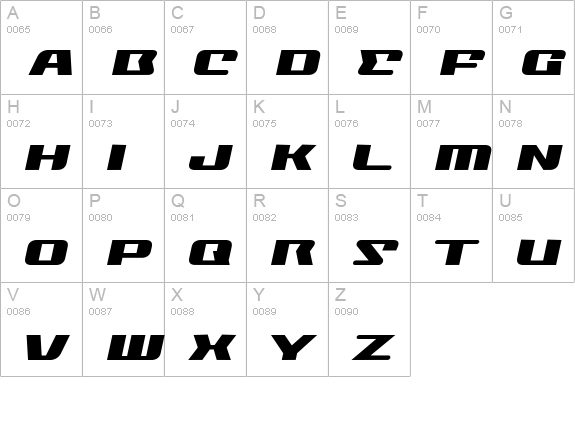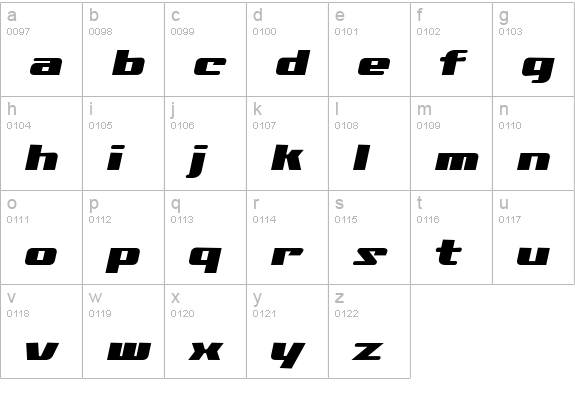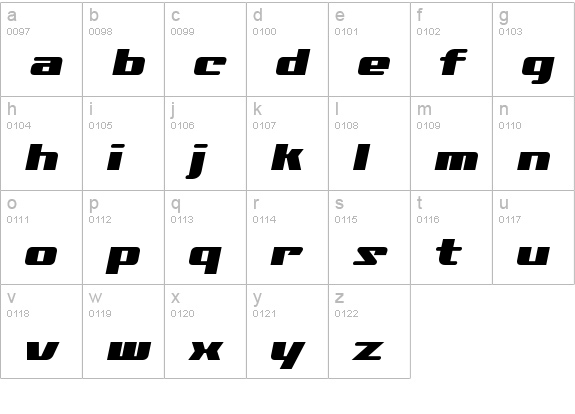
Nationalyze ALP Font Details
Nationalyze ALP font is a modern and stylish typeface that exudes sophistication and elegance. With its clean lines and sleek design, this font is perfect for a wide range of design projects, from branding to editorial design. The Nationalyze ALP font is versatile and can be used for both headings and body text, making it a great choice for any project. The best part is that Nationalyze ALP font is completely free to download at FontsMarket.com. This means that you can easily access this beautiful font for your projects without any cost. Don't miss out on the opportunity to enhance your designs with this stunning typeface. Download Nationalyze ALP font today and elevate your design work to the next level.